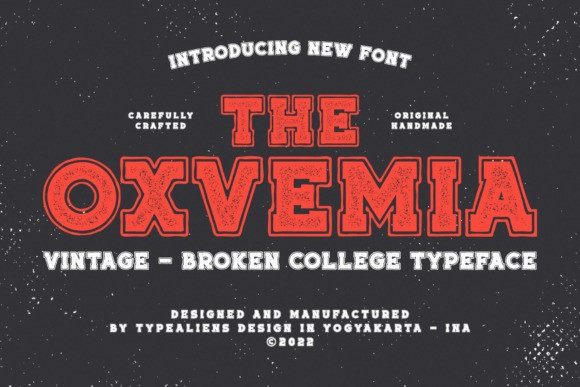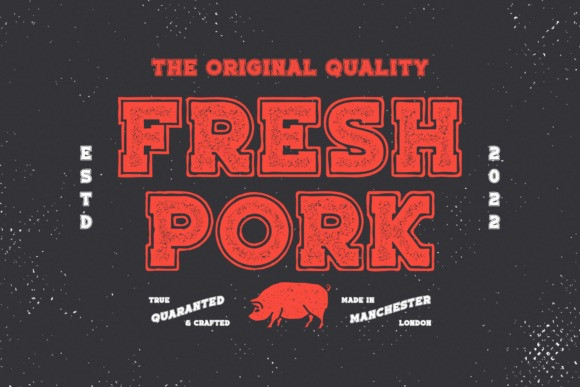
Oxvemia Font
The Oxvemia is a vintage display font with a college-style texture. With bold characteristics that make this font feel strong and sturdy, it will be very suitable for brands that are formal, stiff and large.